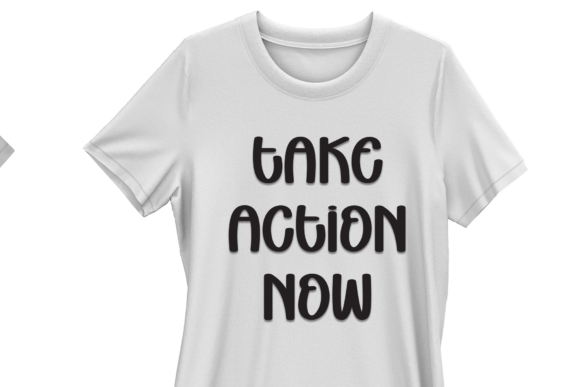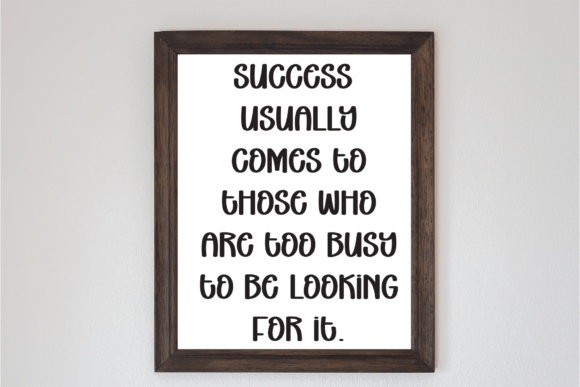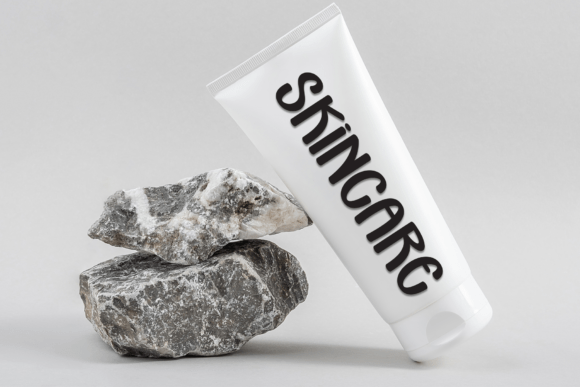
Introduction to Retro Disney Font
Remember that magical moment when you stumbled upon the perfect font for your creative project? The one that instantly elevates your design and makes it feel truly special? For many designers, that moment is often linked to the enchanting world of Disney. And today, we’re excited to share with you the charm of the Retro Disney Font – a free download that will bring a touch of nostalgia and high quality to your designs.
As a valuable design resource, the Retro Disney Font is perfect for branding, headlines, and everyday designs. Its clean structure and approachable style make it an ideal choice for those seeking a balanced and transparent background for their creative projects. With its readable and charming letterforms, every message feels genuine and inviting, making it a must-have for designers looking to add a touch of magic to their work.
Key Features of Retro Disney Font
- Retro Disney Font is a high-quality design resource ideal for creative projects that require a touch of nostalgia and whimsy.
- It features a transparent background, making it easy to overlay on various backgrounds and images.
- The font size is scalable, allowing you to use it for various design projects, from small social media graphics to large-scale print materials.
- Retro Disney Font has a high resolution of 300 DPI, making it perfect for use in high-quality print materials and large-scale designs.
- Its unique, hand-drawn style gives it a distinctive look that’s perfect for adding a touch of personality to your creative project.
Honest Review: Retro Disney Font
I recently stumbled upon the Retro Disney Font, and I must say, it’s a great addition to any design project. As a designer, I’m always on the lookout for high-quality fonts that can bring a touch of magic to my creative projects.
Here are some things that work well with the Retro Disney Font:
- ✨ Unique and nostalgic feel that’s perfect for retro-themed designs
- ✨ Highly customizable, allowing for various font sizes, styles, and colors
- ✨ Transparent background, making it easy to use in various design applications
- ⚠️ Limited character set, which may not be ideal for longer blocks of text
- ⚠️ Not suitable for formal or professional designs, as it may come across as too playful
Overall, I’d say the Retro Disney Font is a great resource for designers working on creative projects that require a touch of whimsy. While it may not be perfect for every design need, it’s a great addition to any design library.
Use the Retro Disney Font to create a consistent brand identity and style across your creative project. Experiment with different font sizes, colors, and combinations to create a unique and eye-catching design. You can also use the font in combination with other design elements, such as illustrations and graphics, to create a cohesive and high-quality design.
The Retro Disney Font is perfect for creating designs that require a nostalgic and retro touch. Some common use cases include:
- Creating posters and graphics for events and parties
- Designing social media graphics and ads
- Creating illustrations and graphics for children’s books and magazines
- Adding a touch of nostalgia to presentations and documents